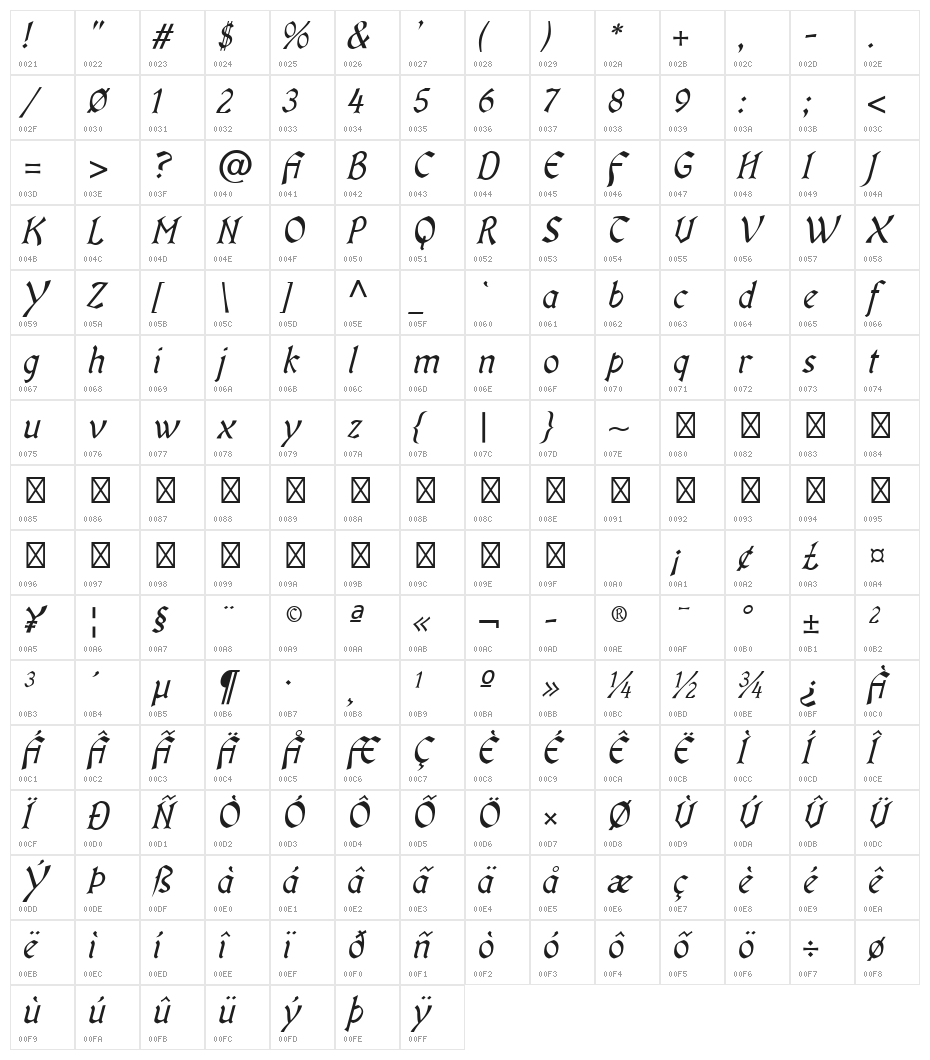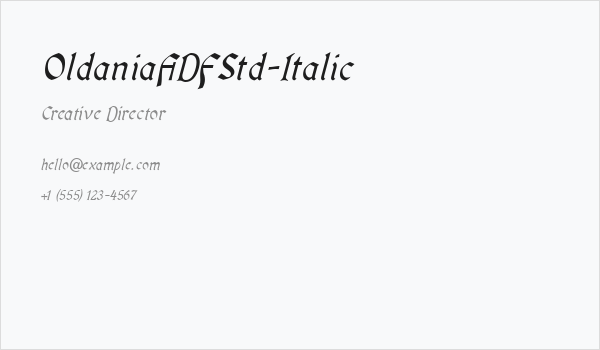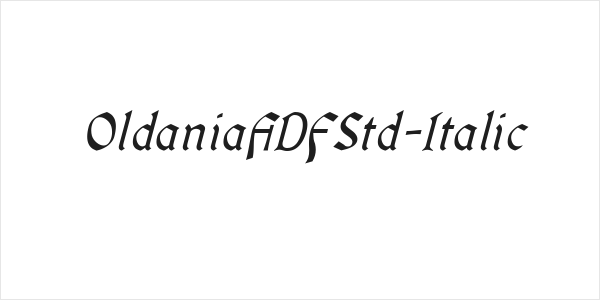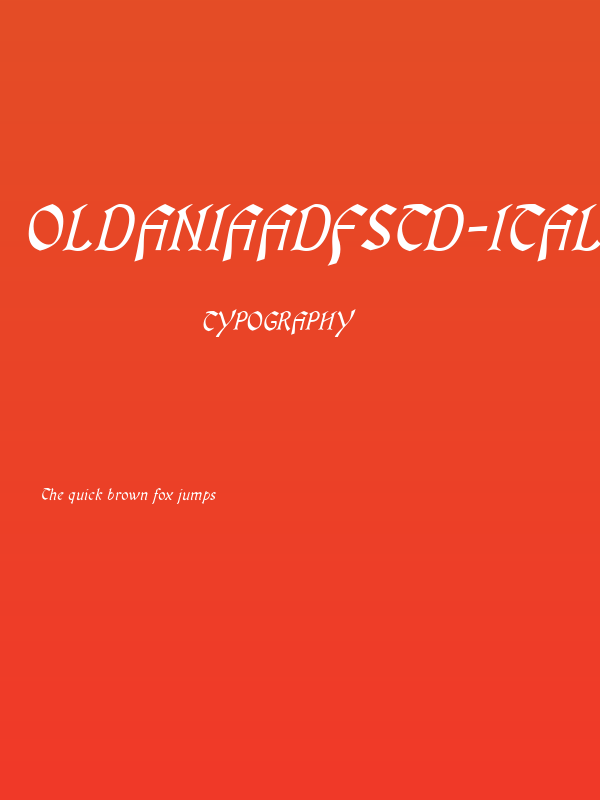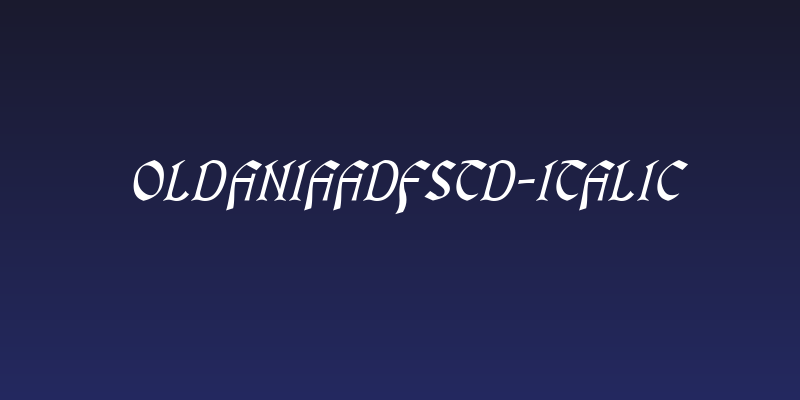
OldaniaADFStd-Italic Font
OldaniaADFStd-Italic Description
This font features a classic and elegant style with a distinct italic slant, reminiscent of traditional calligraphy. The characters are gracefully curved with sharp, angular serifs that give it a sophisticated and formal appearance. The uppercase letters are bold and commanding, while the lowercase letters maintain a fluid and connected form, enhancing readability. The numerals are consistent with the overall style, offering a harmonious blend of curves and angles. Special characters are well-integrated, maintaining the font's aesthetic integrity. This font exudes a sense of historical charm and refinement, making it suitable for projects that require a touch of elegance and tradition.
| Use Case | Headlines, Invitations, Formal documents |
| Proposed Projects | Ideal for wedding invitations, formal event programs, historical publications, and luxury branding. |